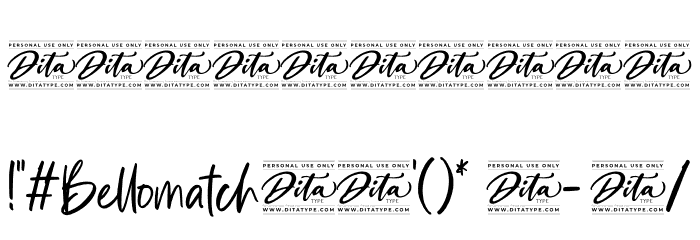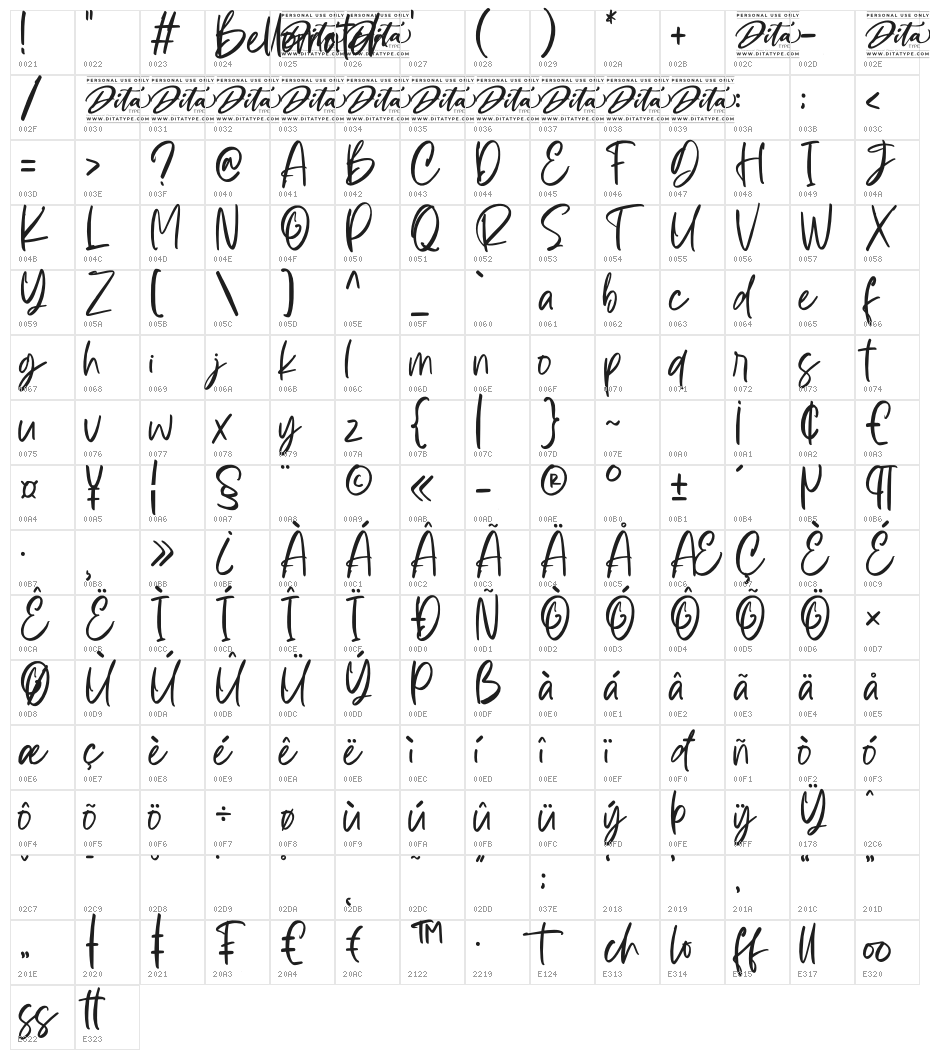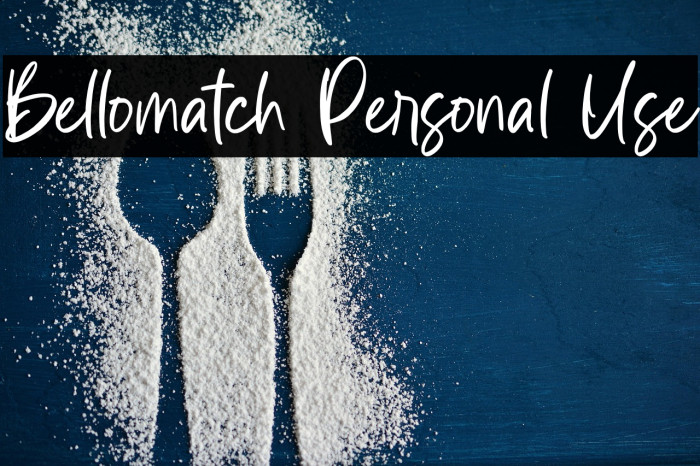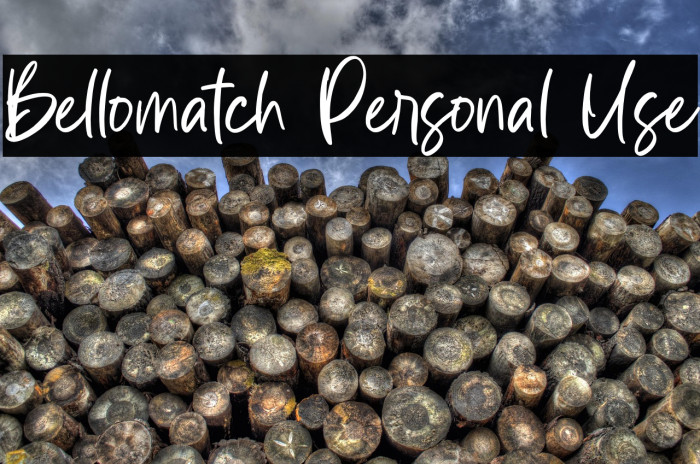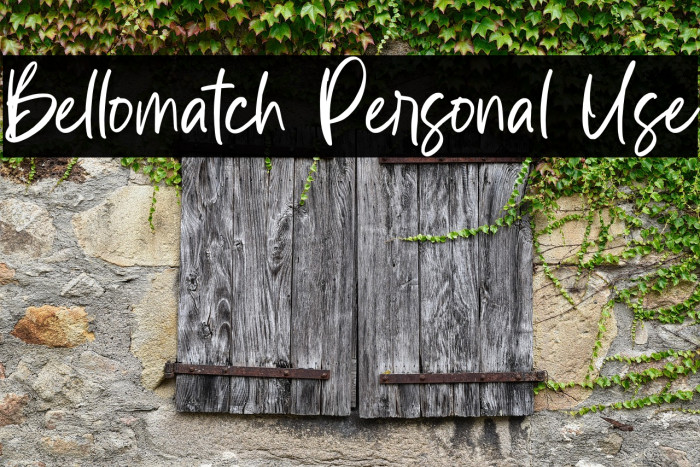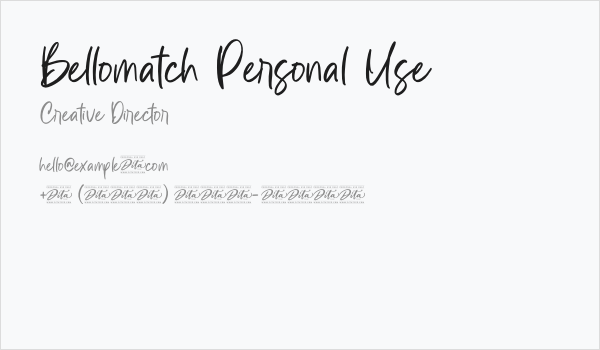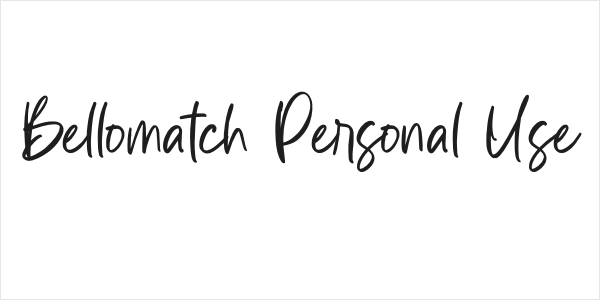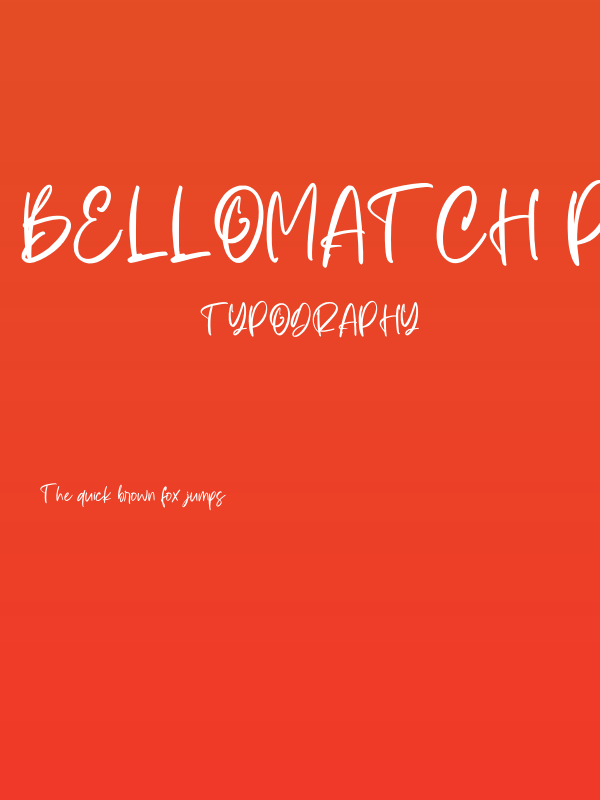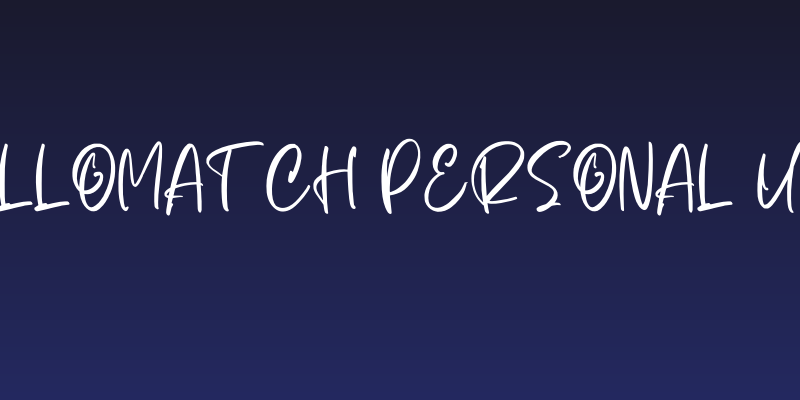
Bellomatch Personal Use Font
Bellomatch Personal Use Description
This font features a lively and dynamic handwritten style, characterized by its fluid and expressive strokes. The letters exhibit a playful and informal aesthetic, with varying line thickness that adds a sense of movement and energy. The uppercase and lowercase letters maintain a consistent style, with some letters featuring unique flourishes and loops that enhance its artistic appeal. The numerals and special characters complement the overall design, making it suitable for creative and casual applications.
| Proposed Projects | Ideal for greeting cards, invitations, personal branding, and creative projects that require a touch of personality and flair. |